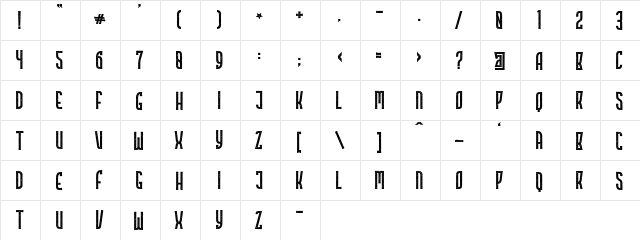
Highstories 4 Regular
Design Context for Highstories 4 Typeface
Highstories 4 offers clean, dependable letterforms without strong stylistic allegiance, making it a practical choice for designers who need flexibility.